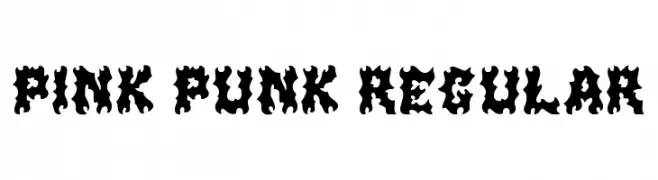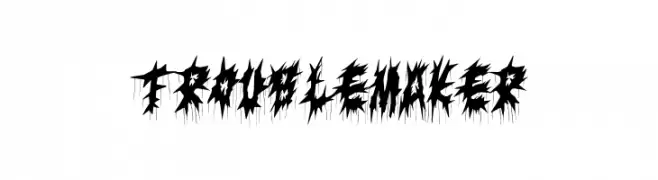
A bold, distressed font with a grunge texture and urban style.
A bold, italicized, handwritten font with an edgy, dynamic style.
A bold, edgy font with rough, brush-like strokes and a rebellious feel.
A bold, edgy, and dynamic font with a graffiti-like, hand-drawn style.
A bold, punk-inspired font with jagged, dynamic characters.
A bold, graffiti-inspired font with dynamic, angular strokes and a rebellious flair.
A bold, edgy font with jagged, brush-like strokes and a rebellious aesthetic.
A bold, jagged font with sharp, thorny edges and an aggressive style.
A bold, dripping graffiti-style font with a rebellious edge.
A bold, angular, and edgy font with a hand-crafted appearance.